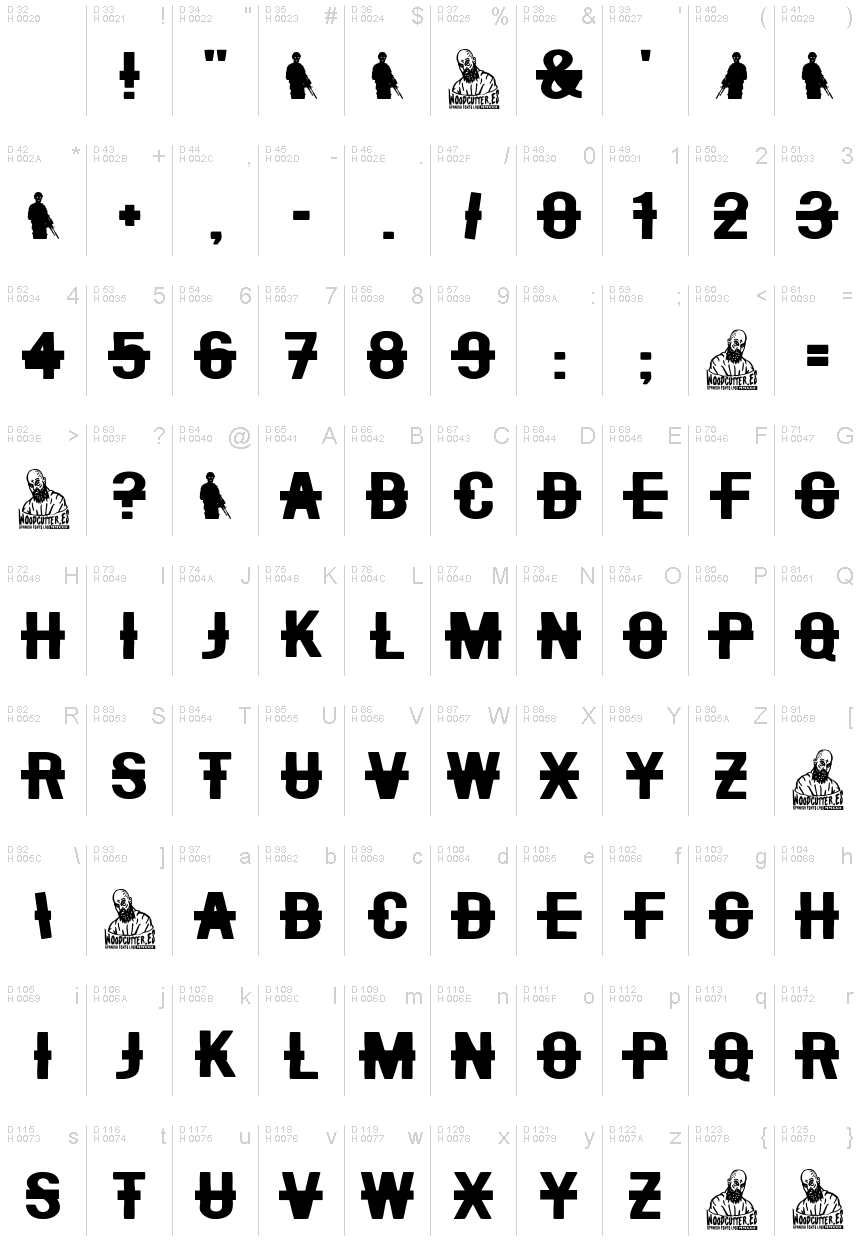
The Protection Army
The Protection Army font, designed by Woodcutter, stands out with its strikingly bold character, exuding a sense of strength and confidence. Its robust forms and assertive lines give it an unmistakable presence, making it ideal for impactful headlines and branding materials that demand attention. The uniquely condensed style enhances its modern aesthetic while maintaining clarity in display applications.
Whether used for posters, logos, or digital media, The Protection Army captures the eye and evokes a feeling of resilience. This versatile font thrives in contexts where bold statements are essential—think adventurous campaigns and dynamic designs that inspire action. With its distinctive flair, this font brings an energetic vibe to any project while ensuring messages resonate powerfully with audiences.